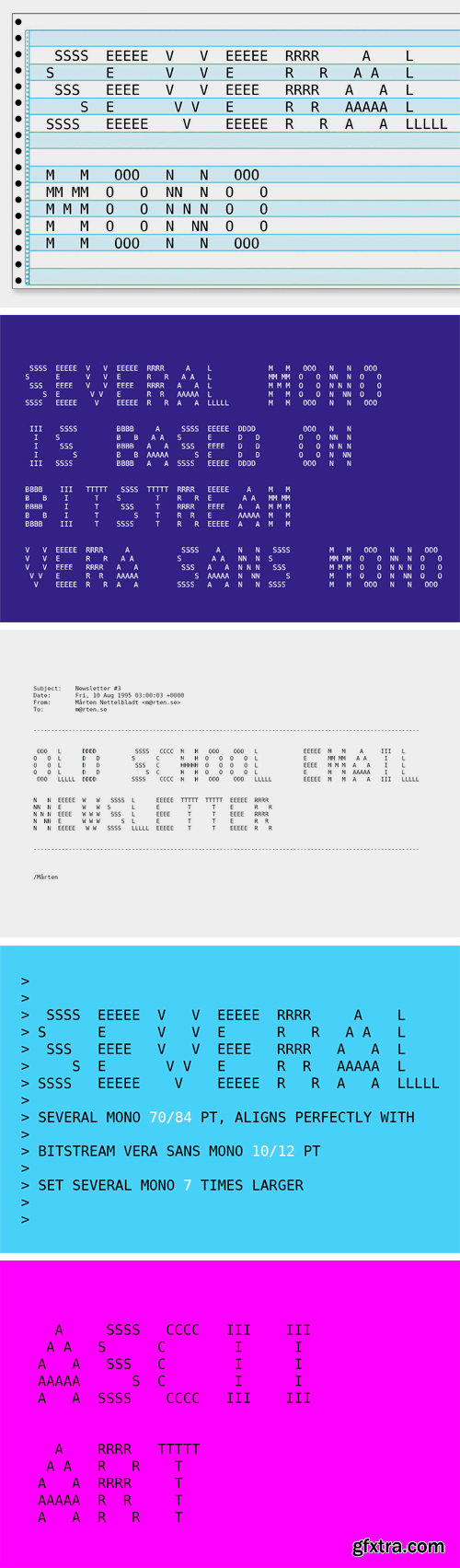
Several Mono Font
Several Mono is a monospaced 5×5 dot matrix typeface in the vein of ASCII Art, based on http://en.wikipedia.org/wiki/Bitstream_Vera. When Several Mono is set seven times larger than Vera Sans Mono, the two fonts will align perfectly.